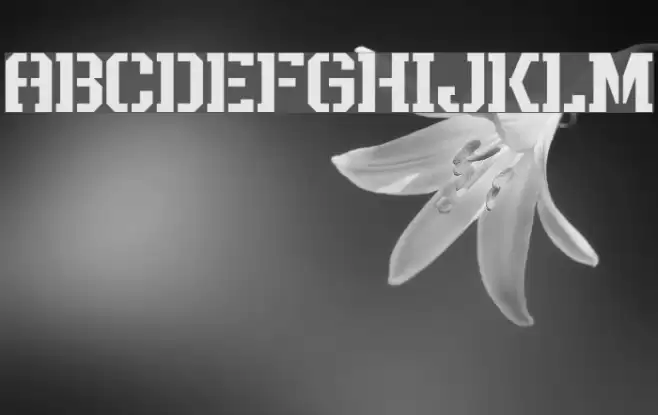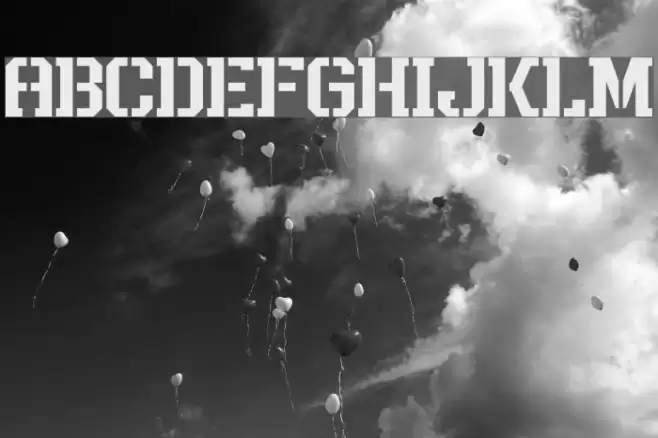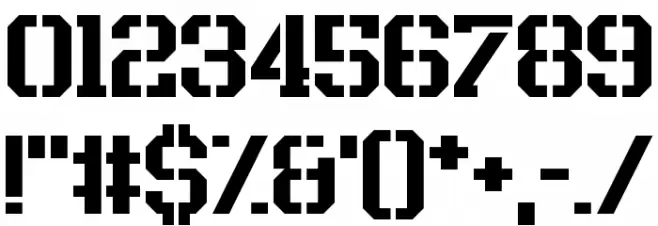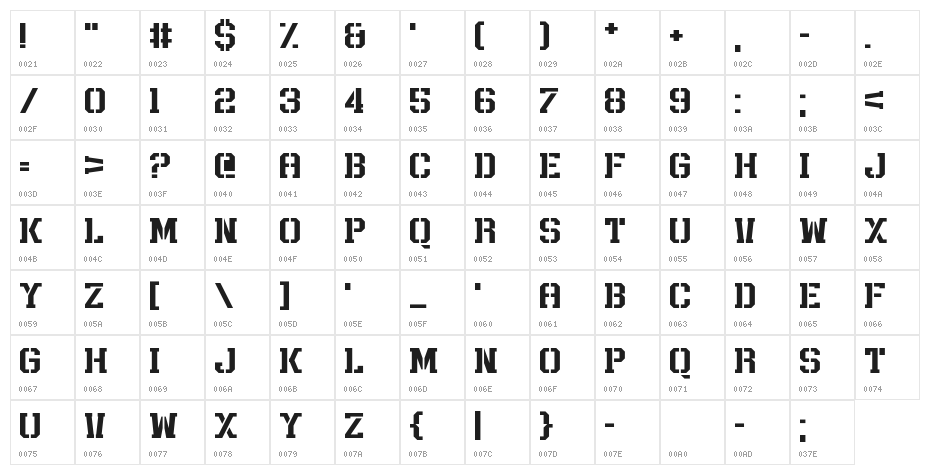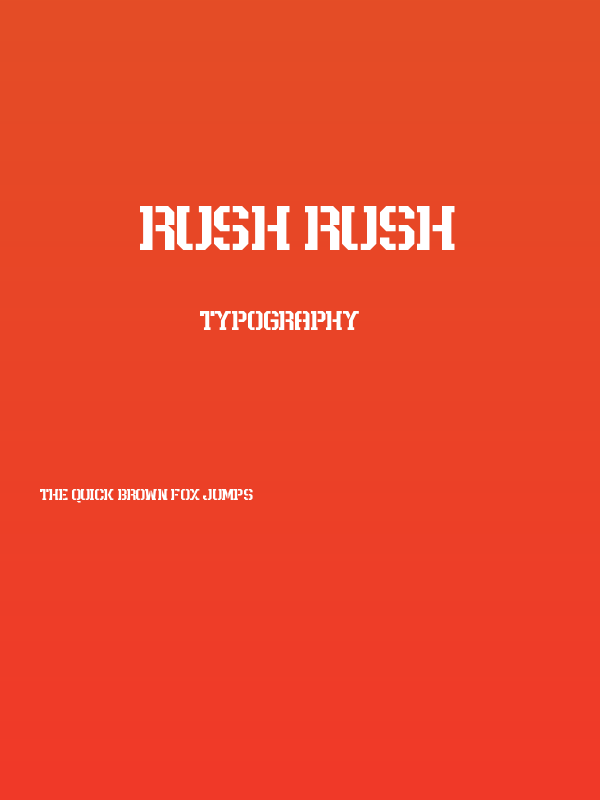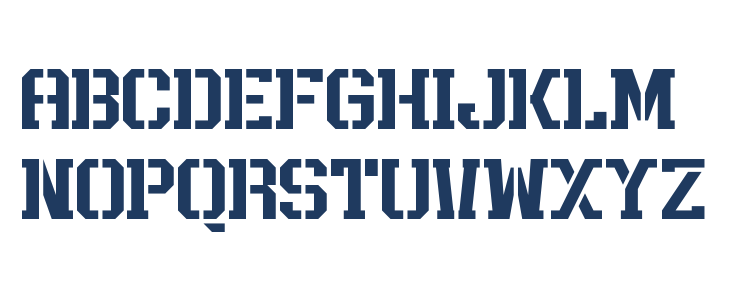
Rush Rush Font
Rush Rush Description
This font features a bold, geometric design with a strong, industrial feel. The characters are constructed with sharp angles and straight lines, creating a sense of urgency and movement. The uppercase and lowercase letters maintain a consistent style, with the uppercase being slightly more pronounced. Numbers and special characters follow the same design principles, ensuring uniformity across all glyphs. The font's unique style makes it stand out, with its blocky, stencil-like appearance that is both modern and edgy.
A bold, geometric font with an industrial, stencil-like design from Uncategorized fonts.
- Proposed Projects: Ideal for branding, posters, and signage that require a strong, impactful presence.